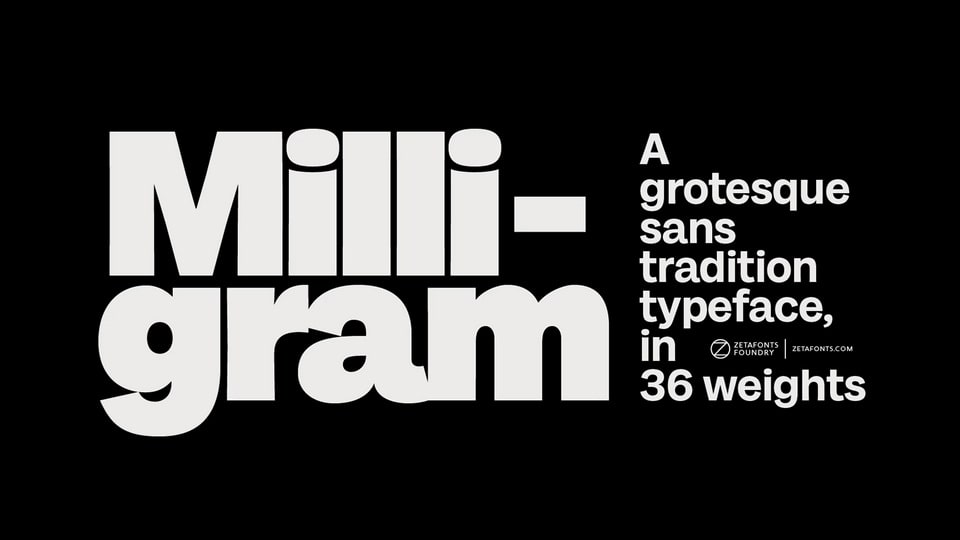
Download Milligram font, a grotesque sans typeface that develops around an idiosyncratic relationship with negative space, inspired by the tight metrics modernist designers imposed on their layouts. Leaving a text optimized spacing to the text subfamily, Milligram plays with a feeling of attraction behind shapes.